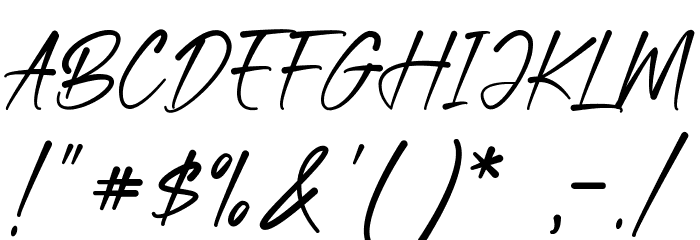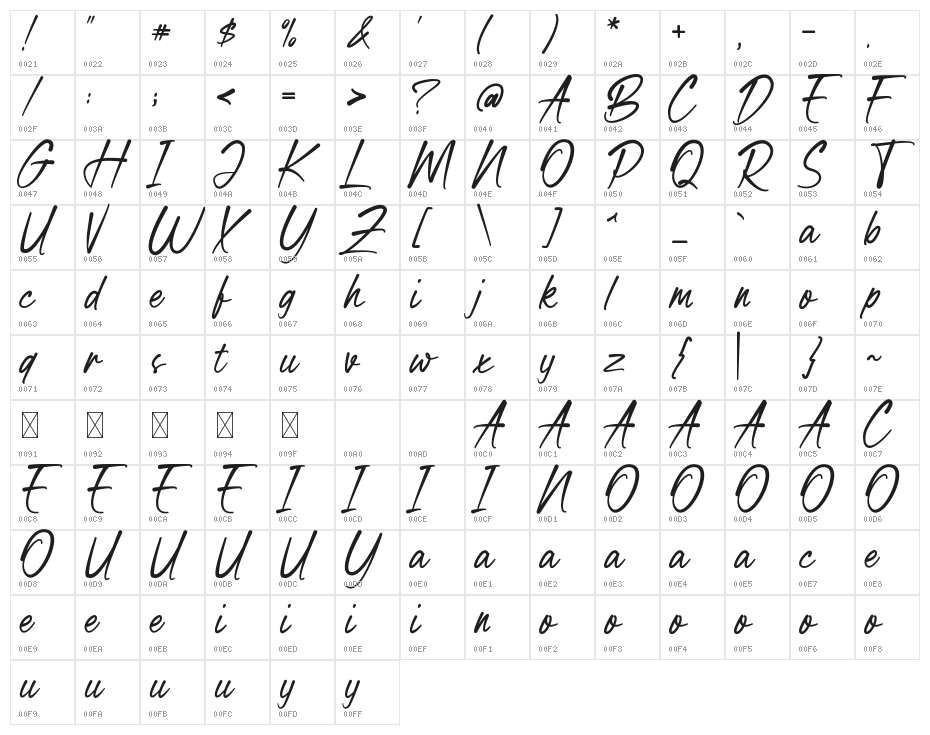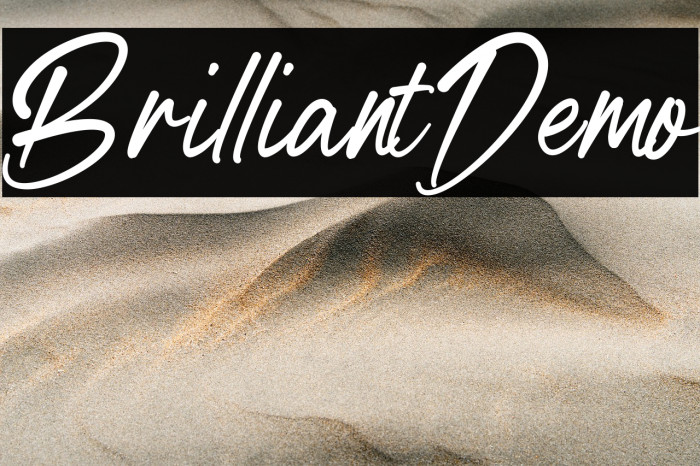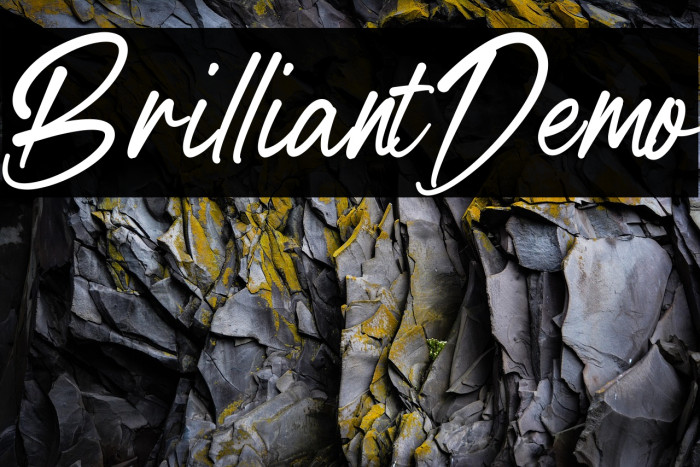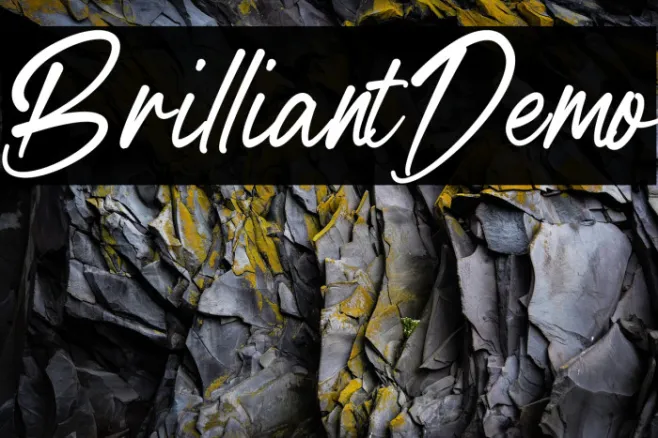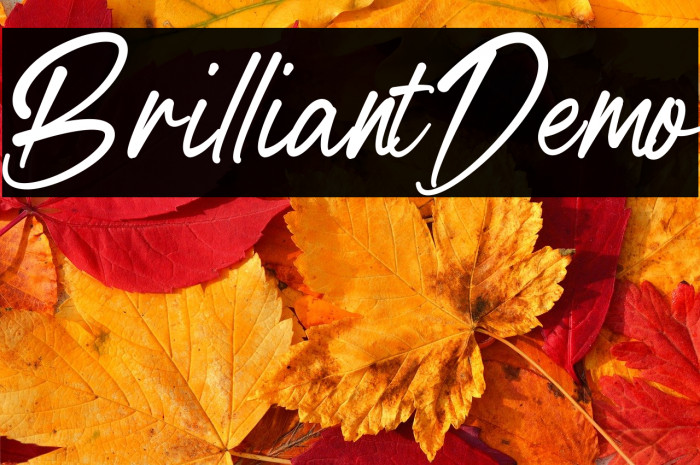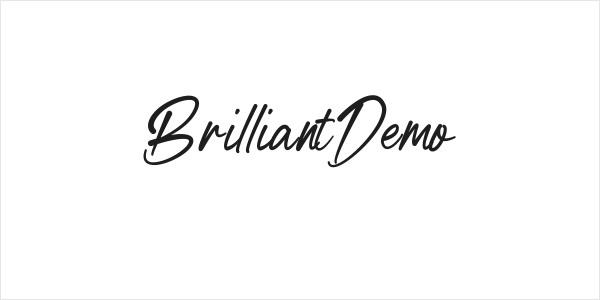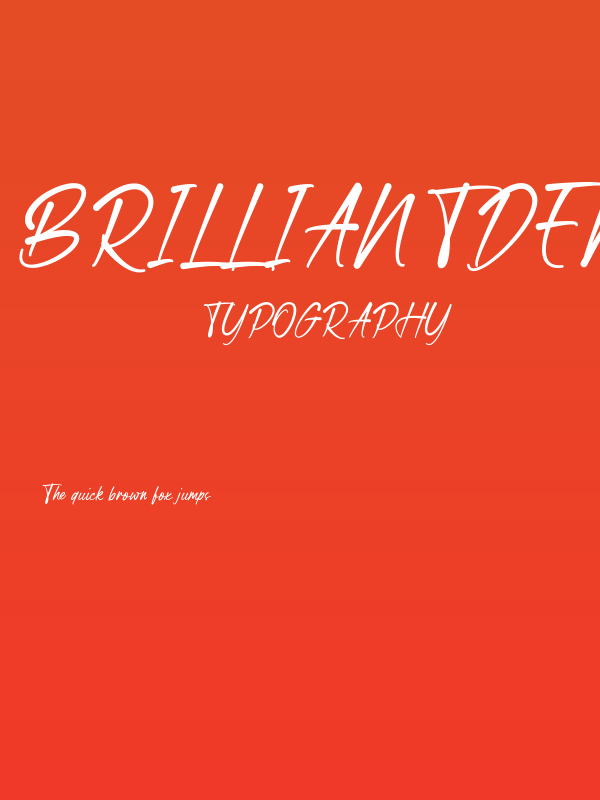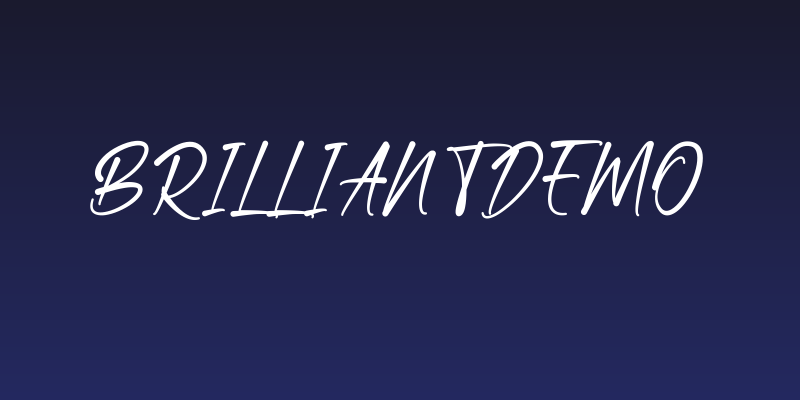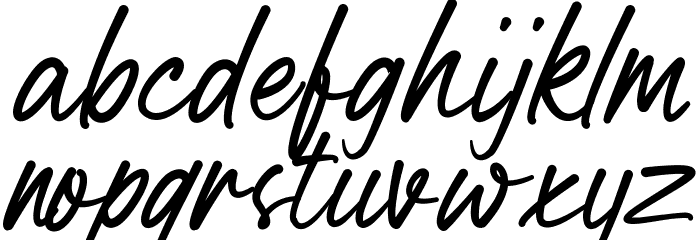
BrilliantDemo Font
BrilliantDemo Description
This font exudes a dynamic and energetic feel with its fluid, cursive style. The uppercase letters are elegantly elongated, creating a sense of movement and grace. The lowercase letters maintain a consistent flow, enhancing readability while retaining a personal touch. The strokes are smooth and slightly varied in thickness, adding to the handwritten appeal. The numbers and special characters complement the alphabet with similar stylistic features, ensuring a cohesive look across all text elements. This font is perfect for projects that require a touch of sophistication and personality.
| Proposed Projects | Ideal for wedding invitations, personal branding, greeting cards, and elegant packaging designs. |